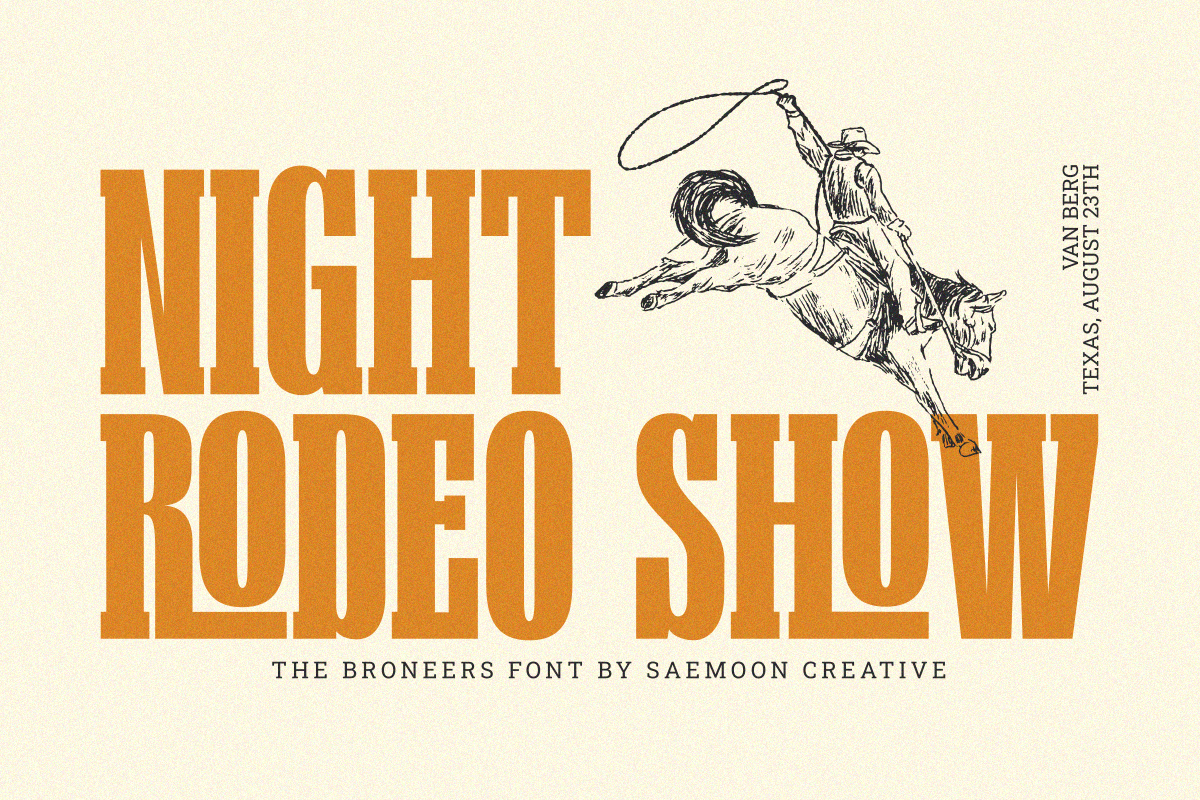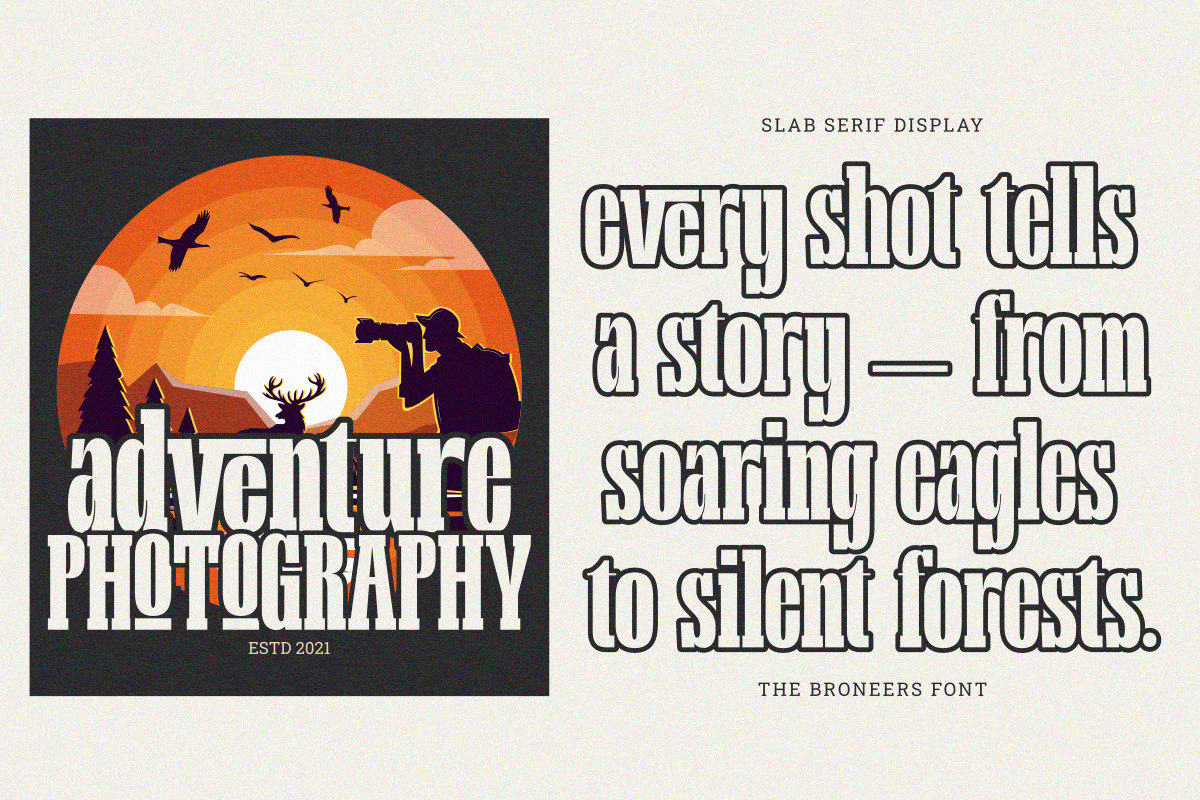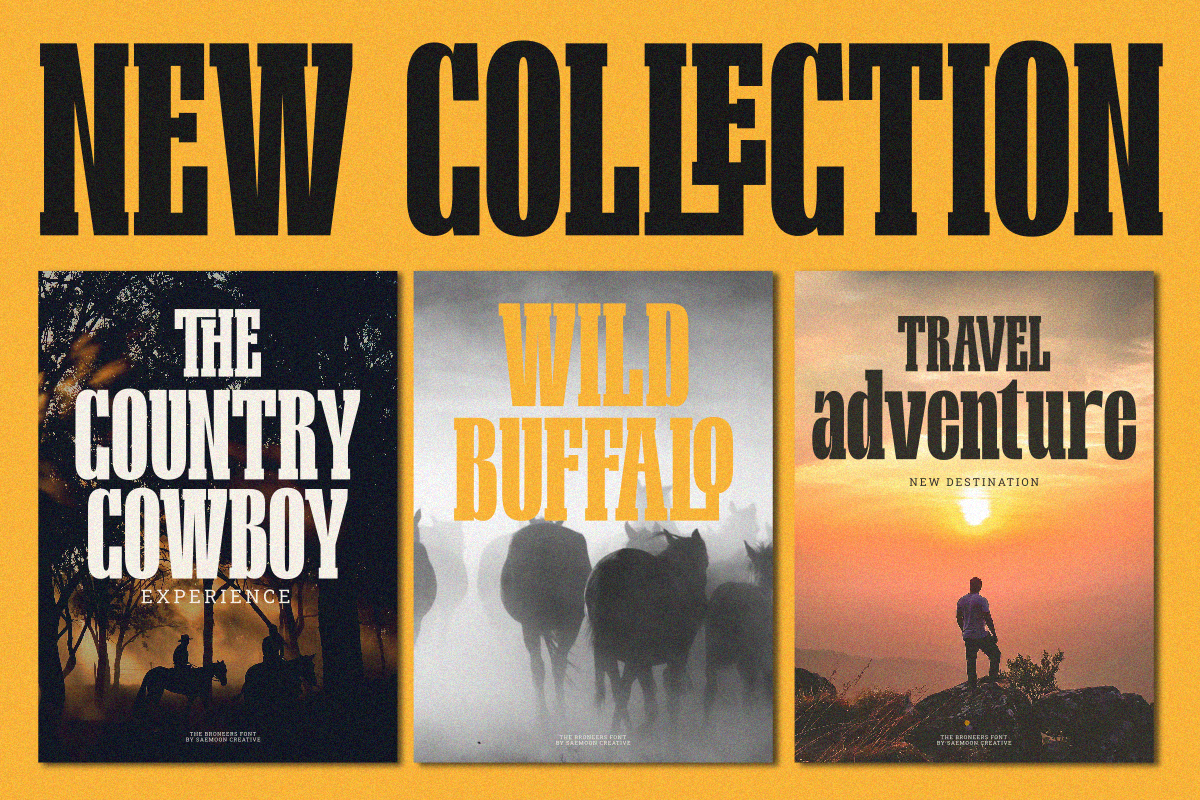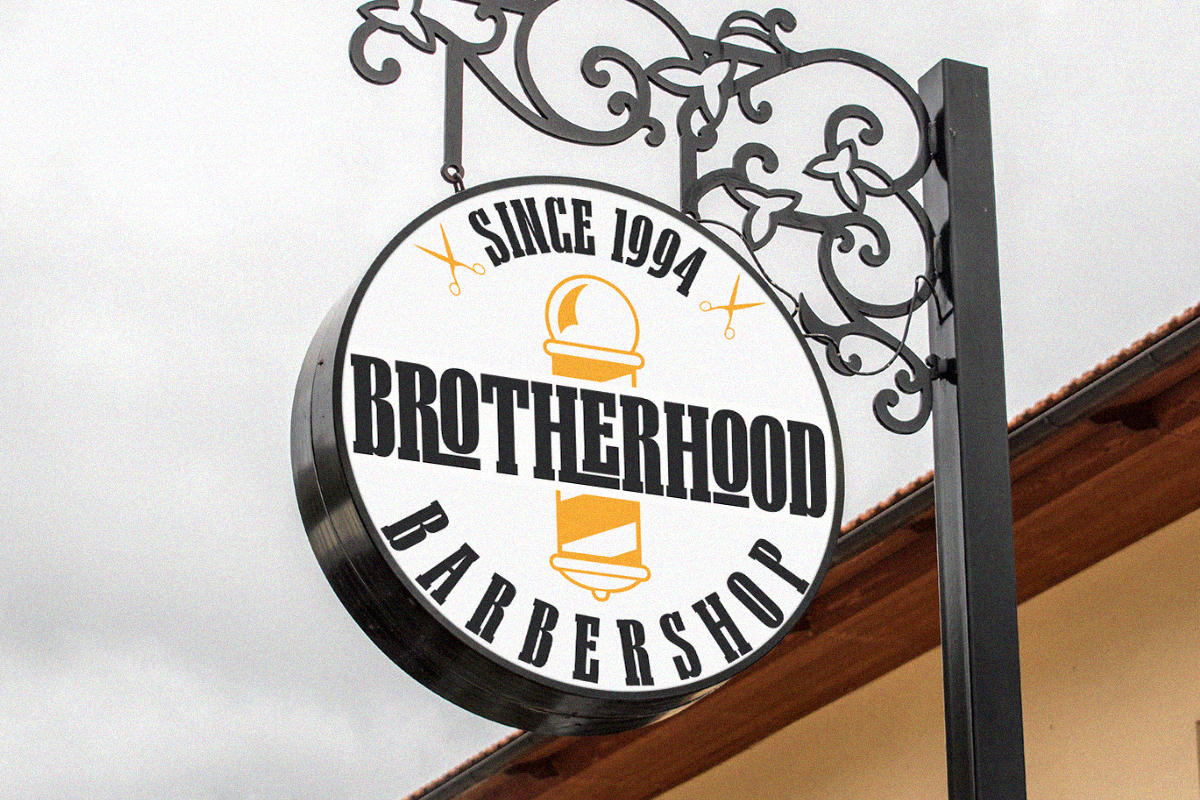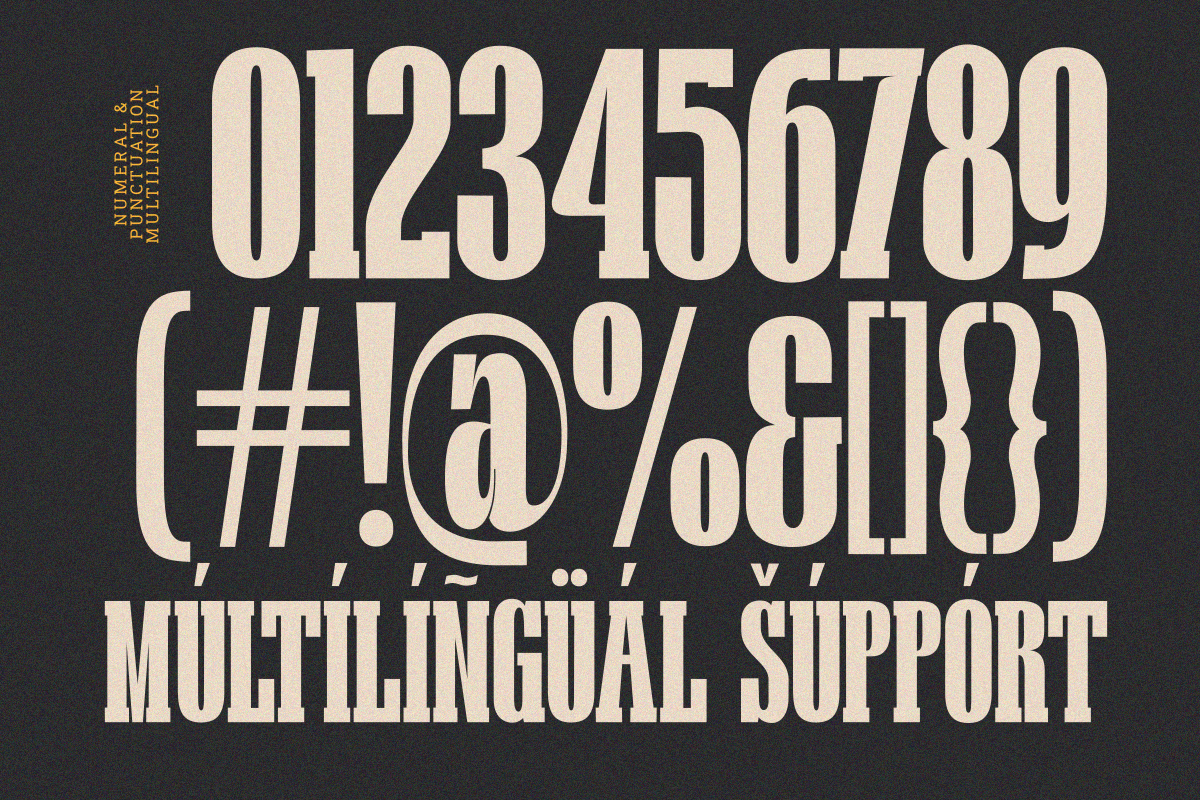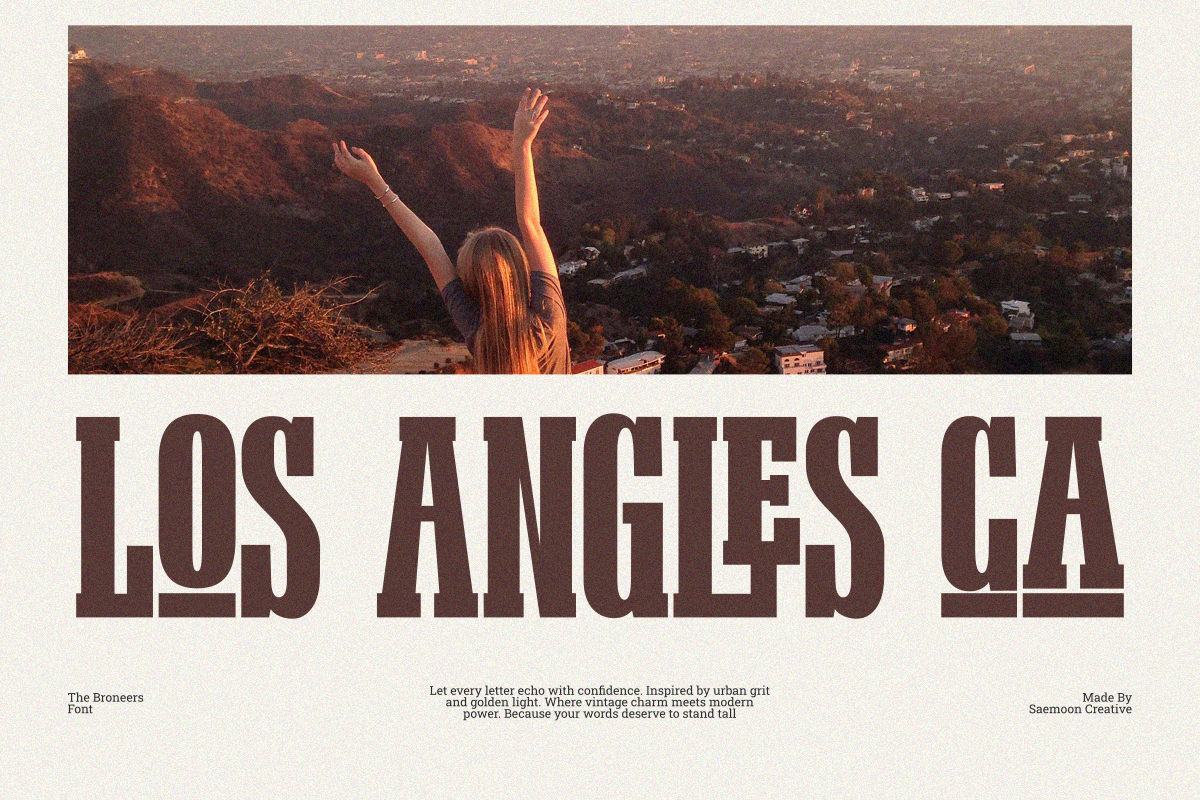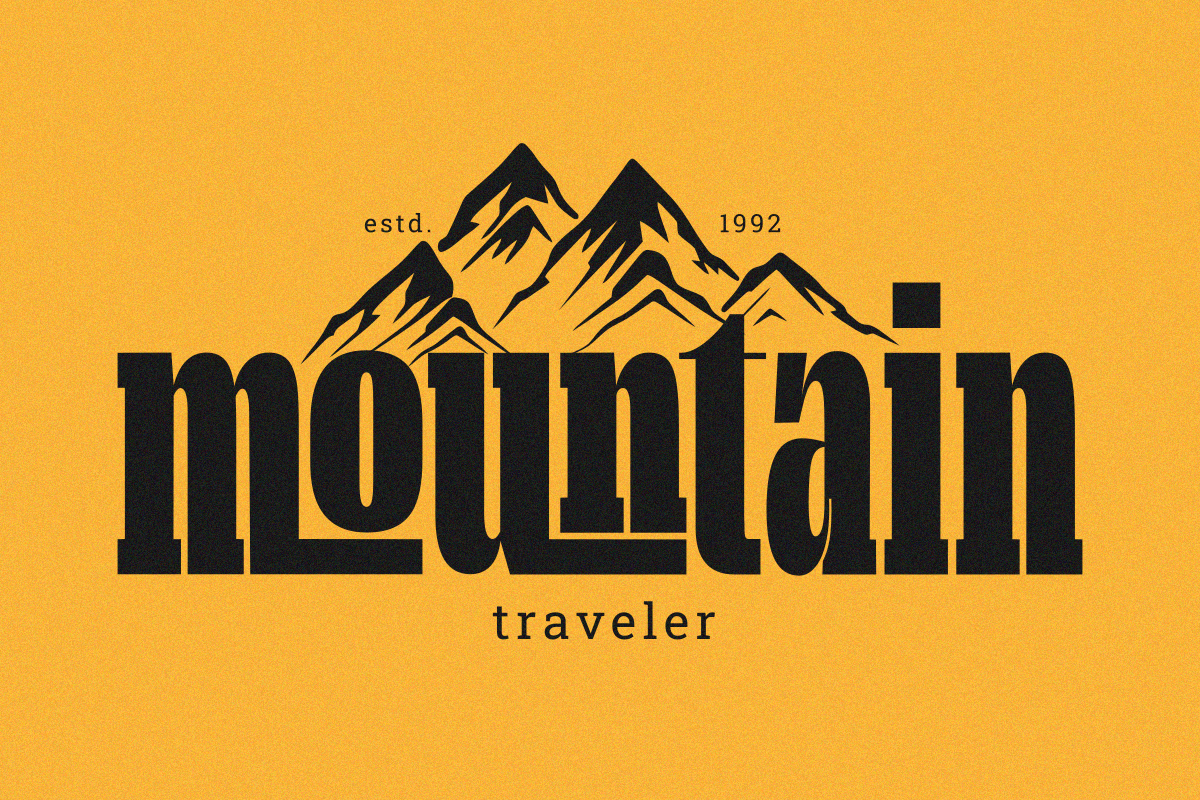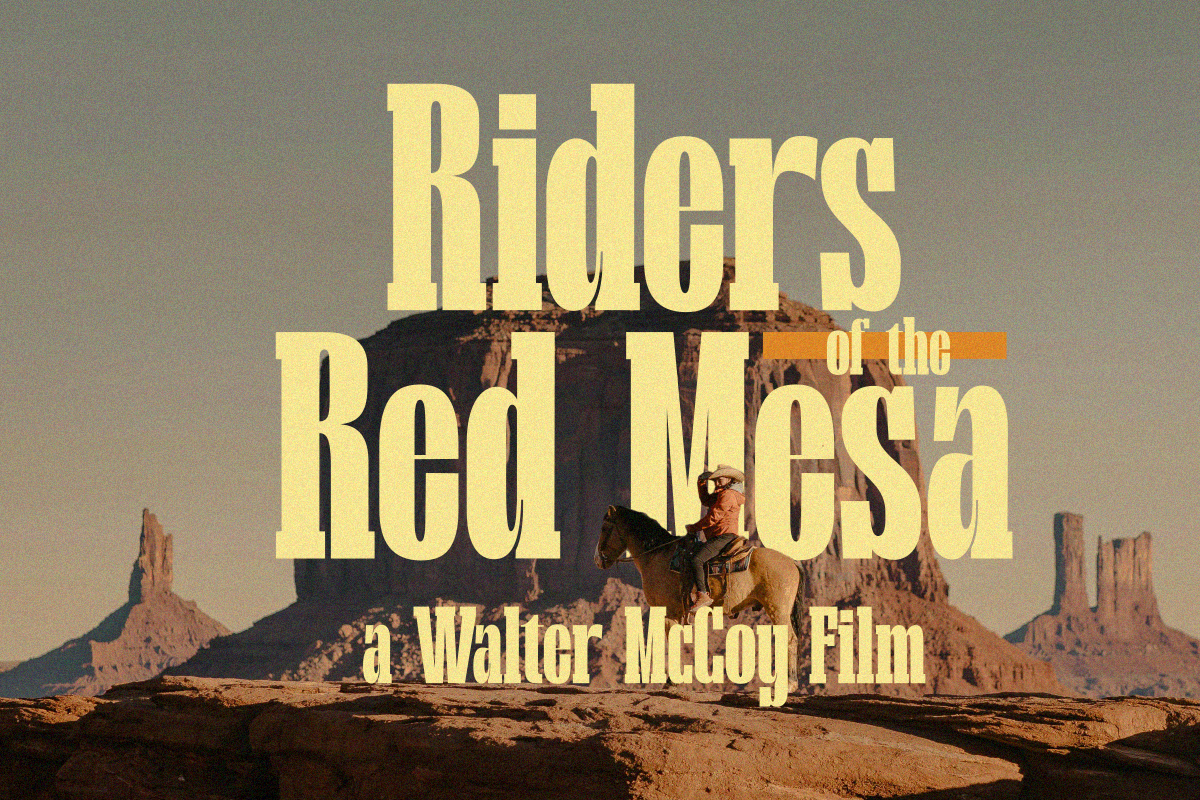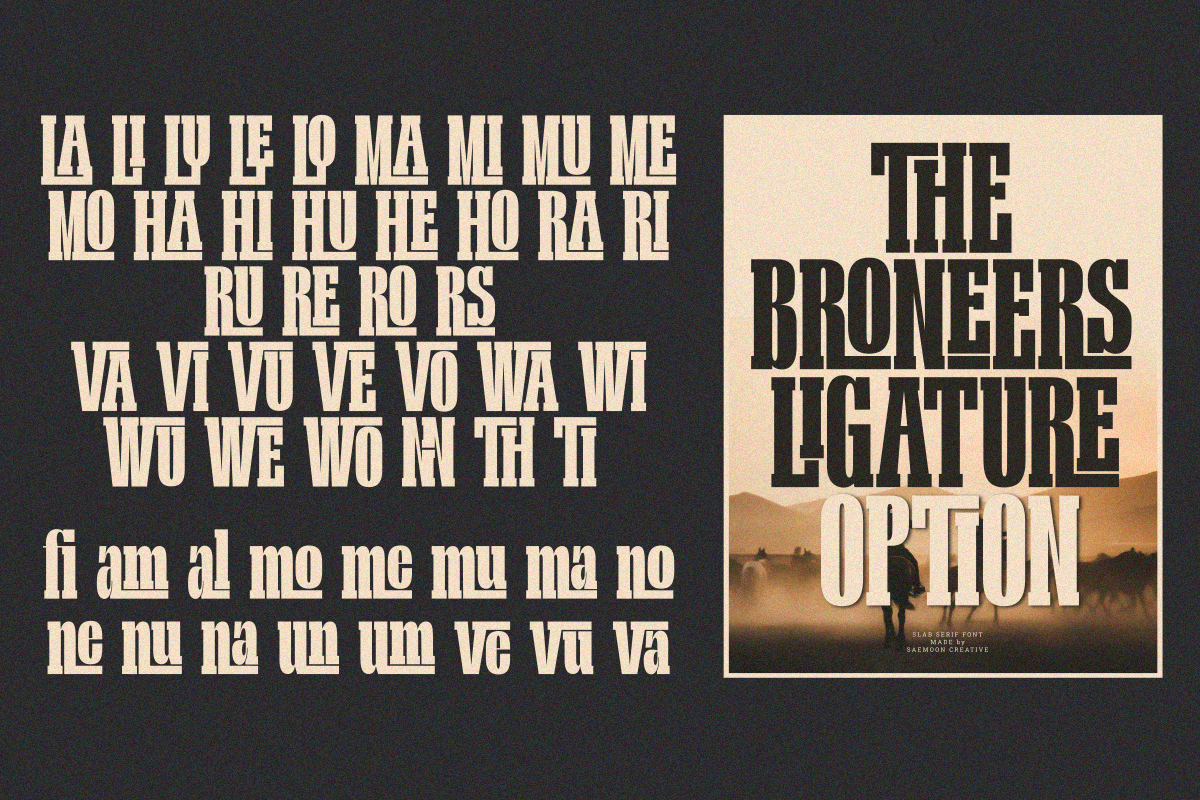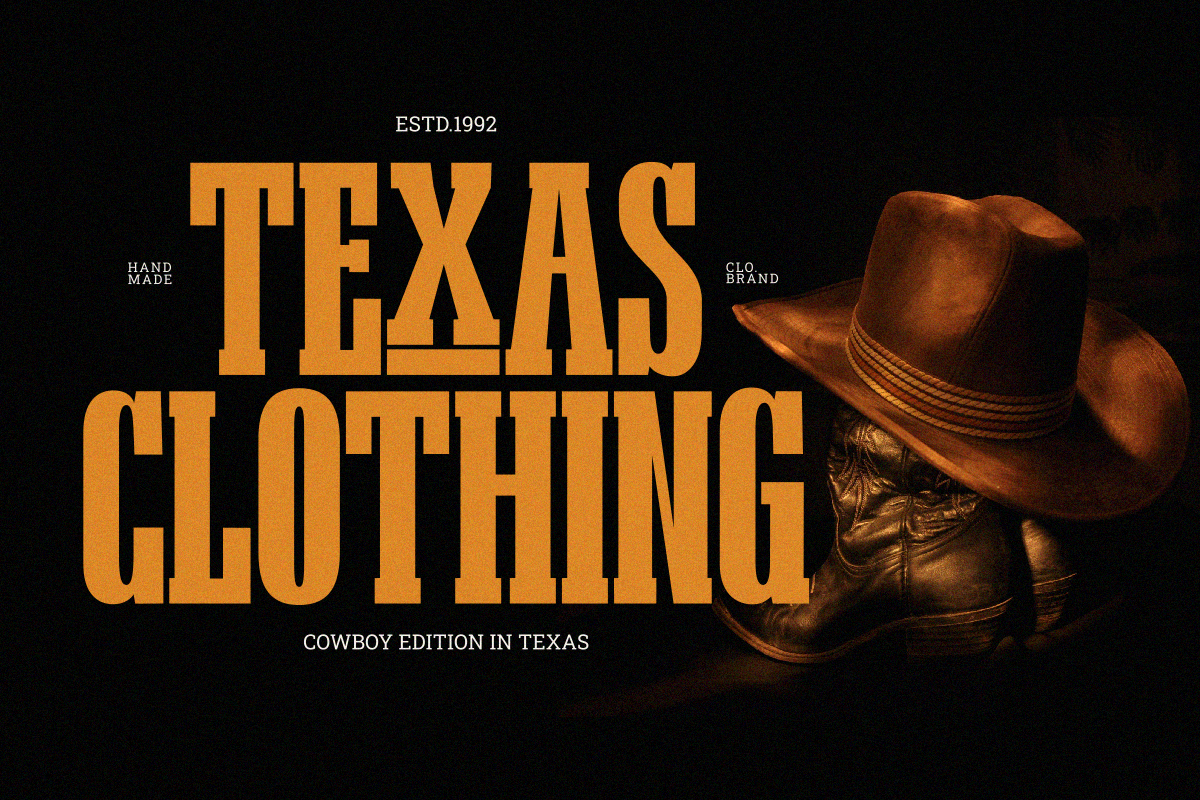
The Broneers
The Broneers is a bold slab serif font that channels the rugged charm of the Wild West. With its strong vertical serifs, firm letter structure, and vintage-inspired look, this typeface brings boldness and authenticity to your designs. Perfectly suited for headlines, posters, logos, packaging, and editorial layouts, The Broneers stands out with its timeless character and visual impact.
Crafted with attention to detail, each letterform is built to deliver strength and personality — making it an ideal choice for creative projects that aim to leave a strong impression.
Uppercase & Lowercase Letters
Multilingual Support (Latin-based accents)
Ligature & Alternate